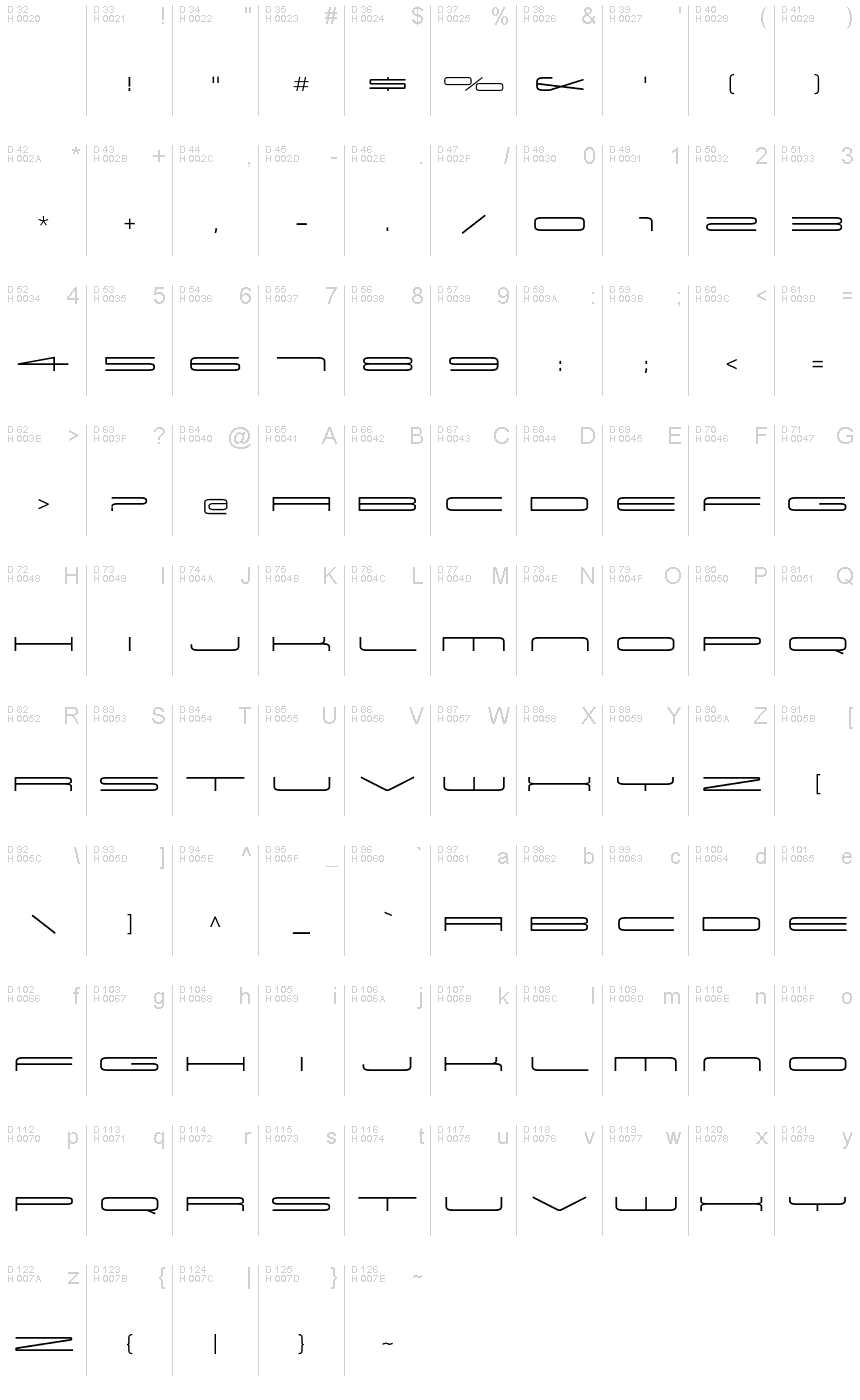
Univox-Regular
Univox, designed by Ray Larabie, is an avant-garde display font that captures the essence of contemporary style with a techno flair. Its semi-light weight harmonizes with an ultra-expanded width to create a sense of openness without sacrificing presence. The Univox font boasts clean lines and modern proportions, making it an excellent choice for designers looking to inject a futuristic or electronic vibe into their work.
The sleek geometry and airy structure of Univox lend it exceptional legibility while maintaining its cutting-edge character. This makes it not only aesthetically pleasing but also versatile across various creative applications, from branding and advertising to digital media and print. Whether employed in bold headlines or as part of an intricate logo design, Univox stands out for its distinctive approach to typographic design, offering endless possibilities for innovative projects that aim to make a statement.